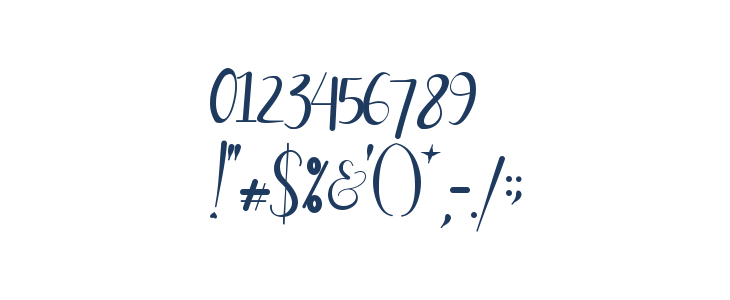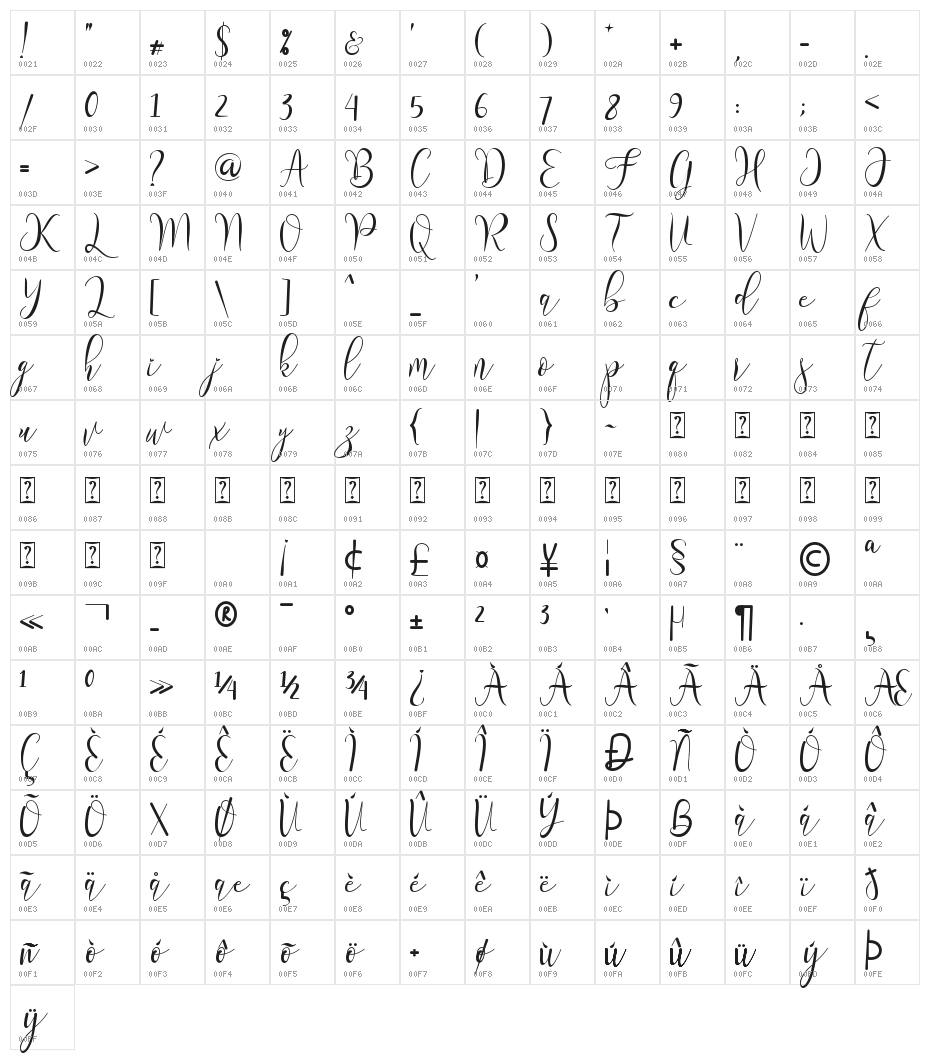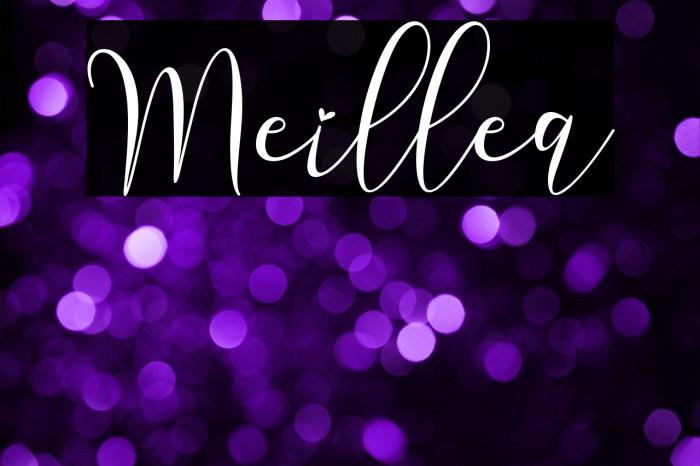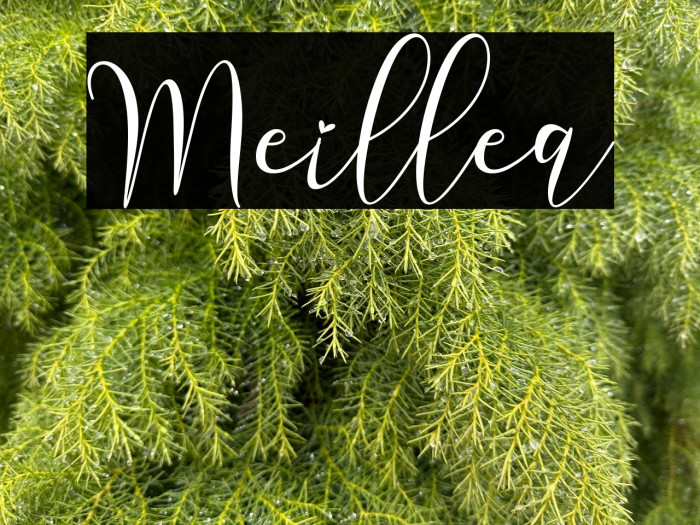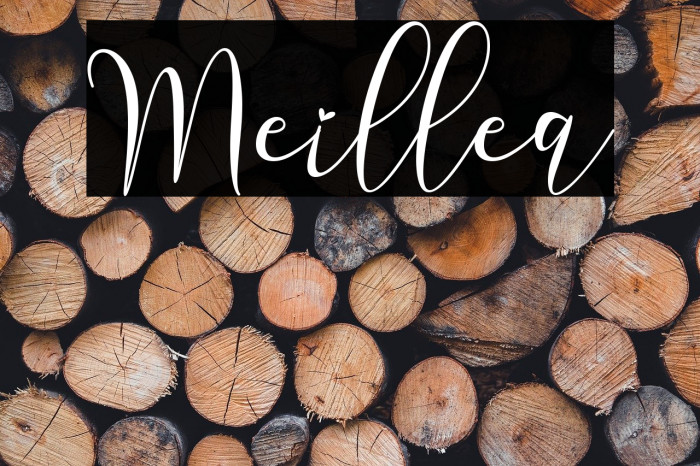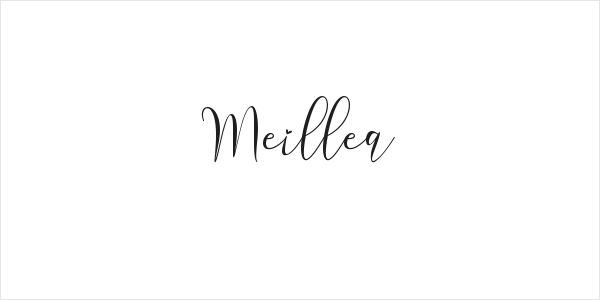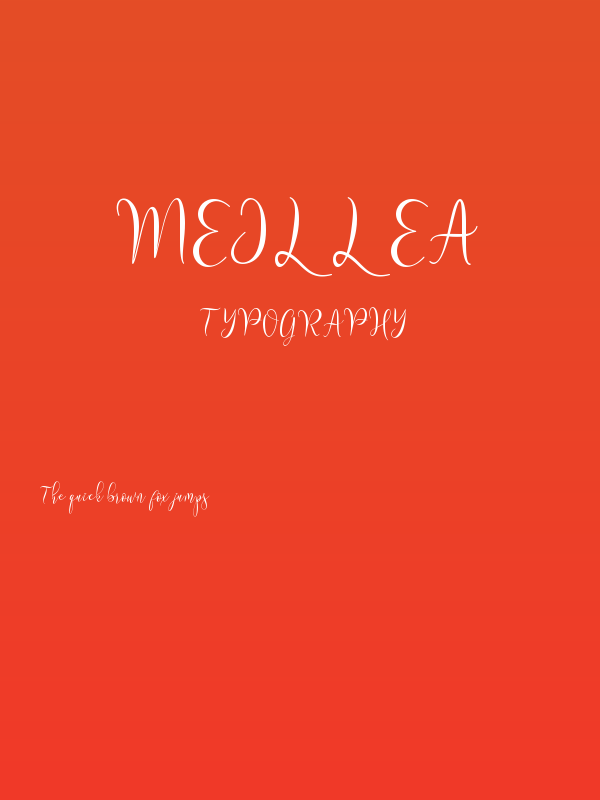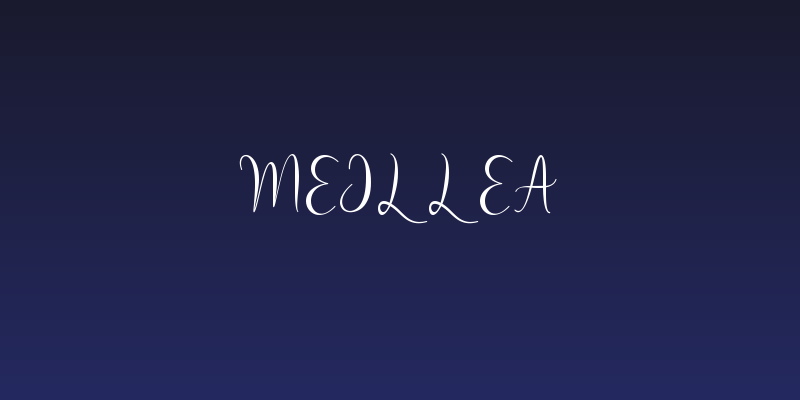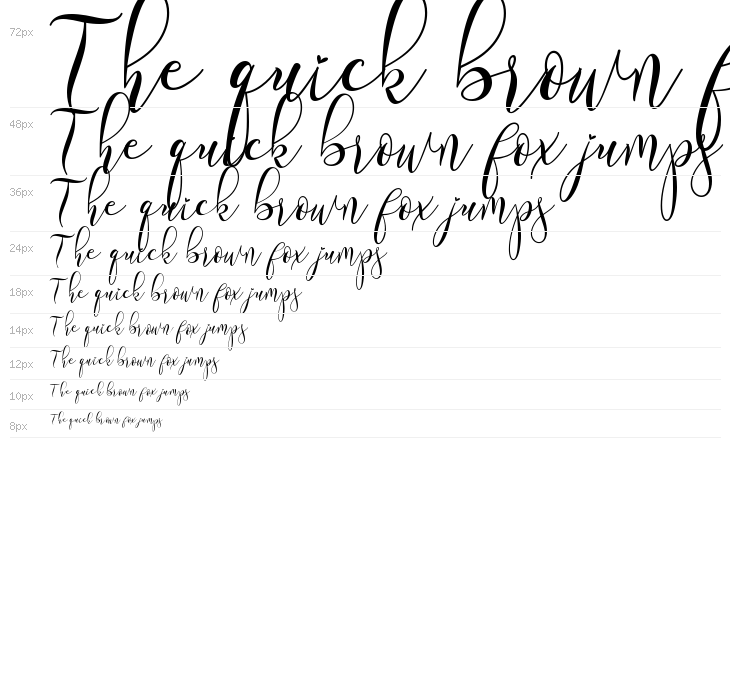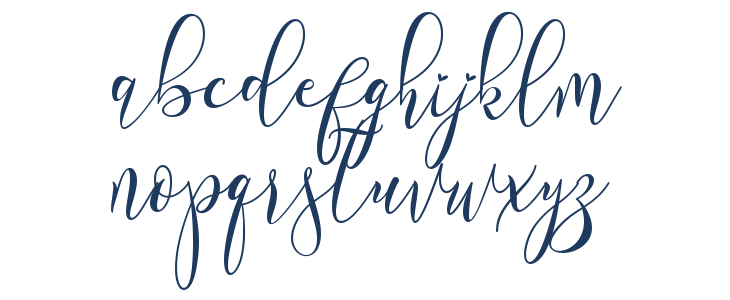
Meillea Font
Meillea Description
This font features an elegant and flowing script style, characterized by its smooth, cursive strokes and graceful curves. The uppercase letters are tall and slightly narrow, with a sophisticated flair that adds a touch of elegance to any text. The lowercase letters maintain a consistent flow, with some letters featuring unique loops and swashes that enhance the overall aesthetic. The numerals are designed to match the script style, with a harmonious blend of curves and straight lines. Special characters are thoughtfully integrated, maintaining the font's cohesive and stylish appearance. This font exudes a sense of sophistication and charm, making it ideal for projects that require a touch of elegance.